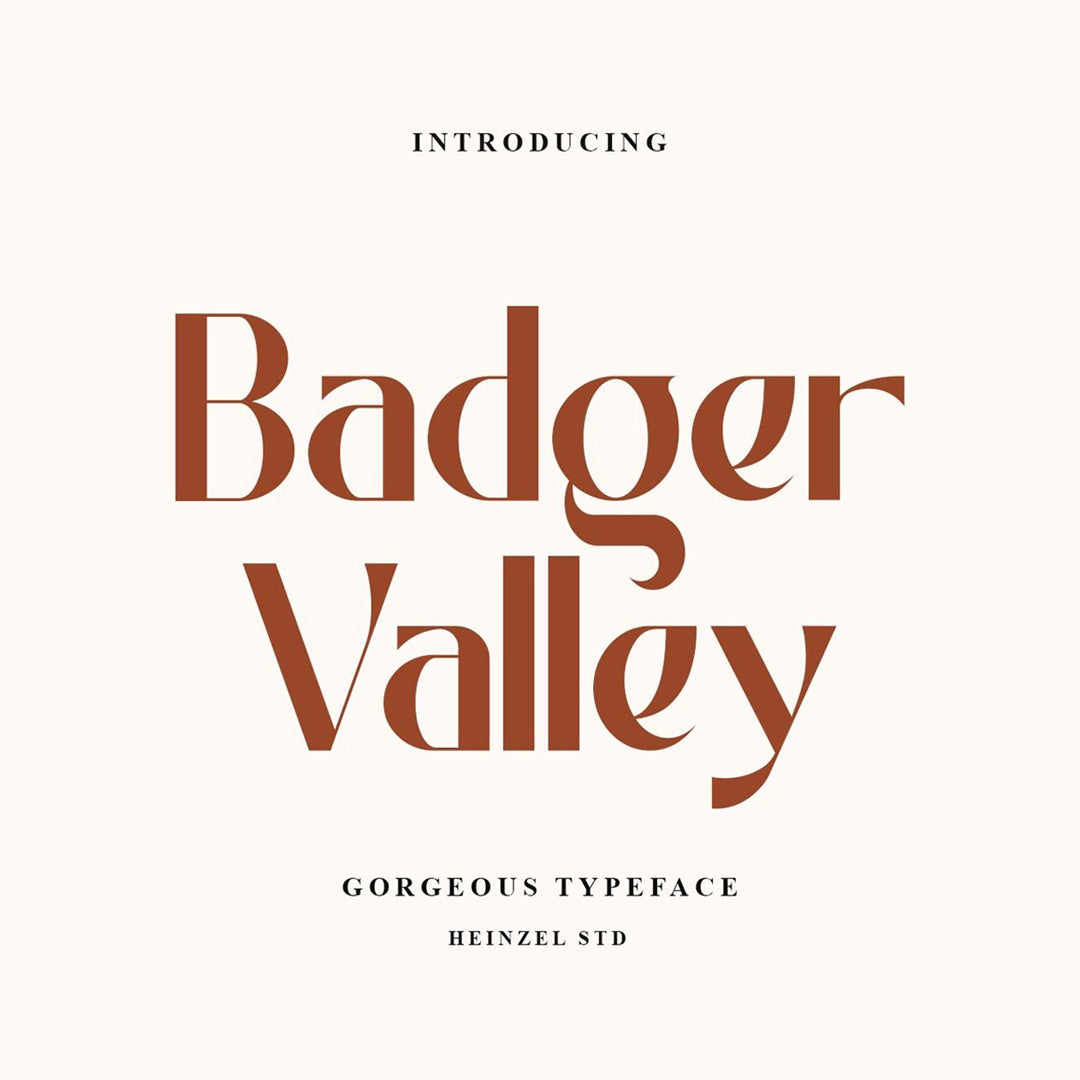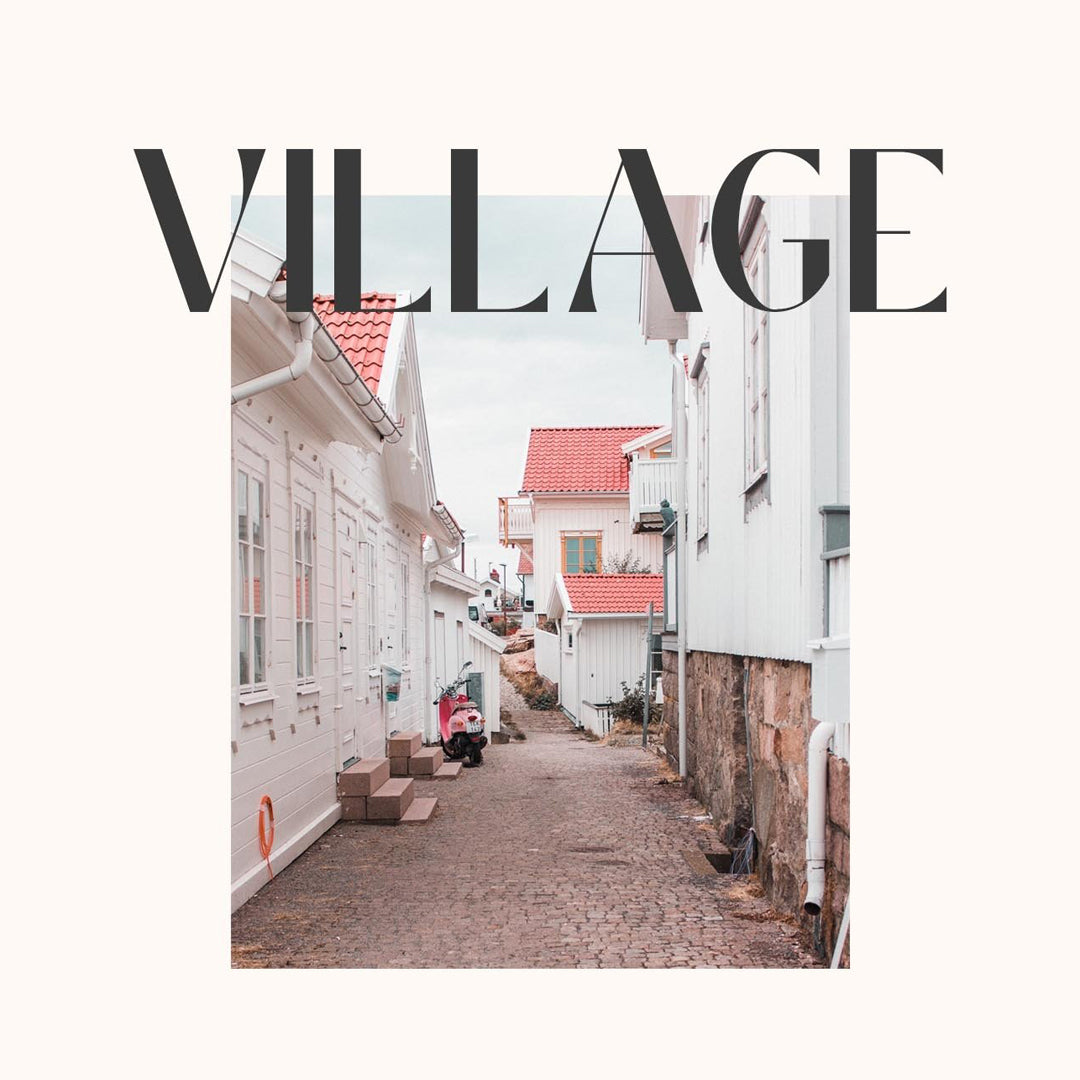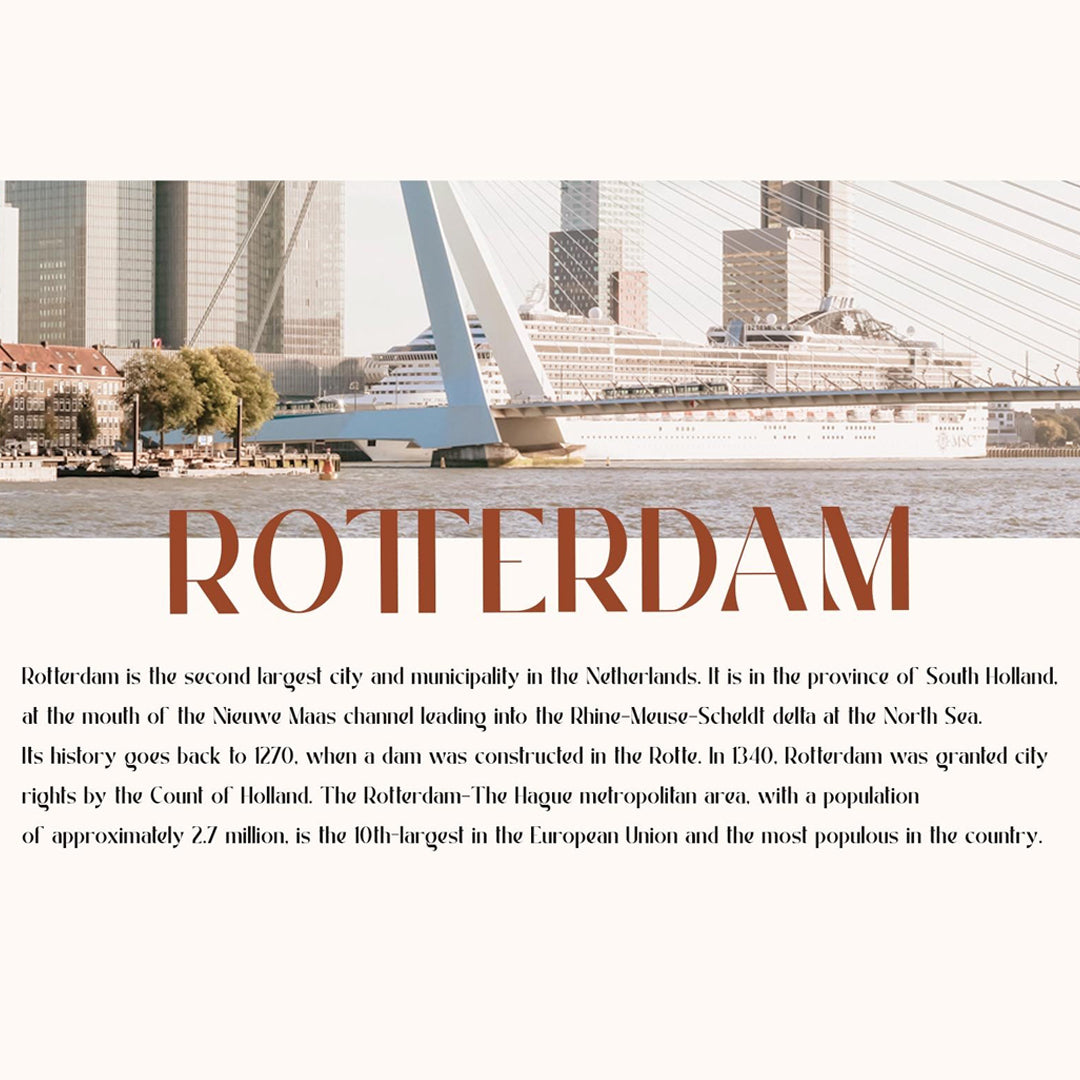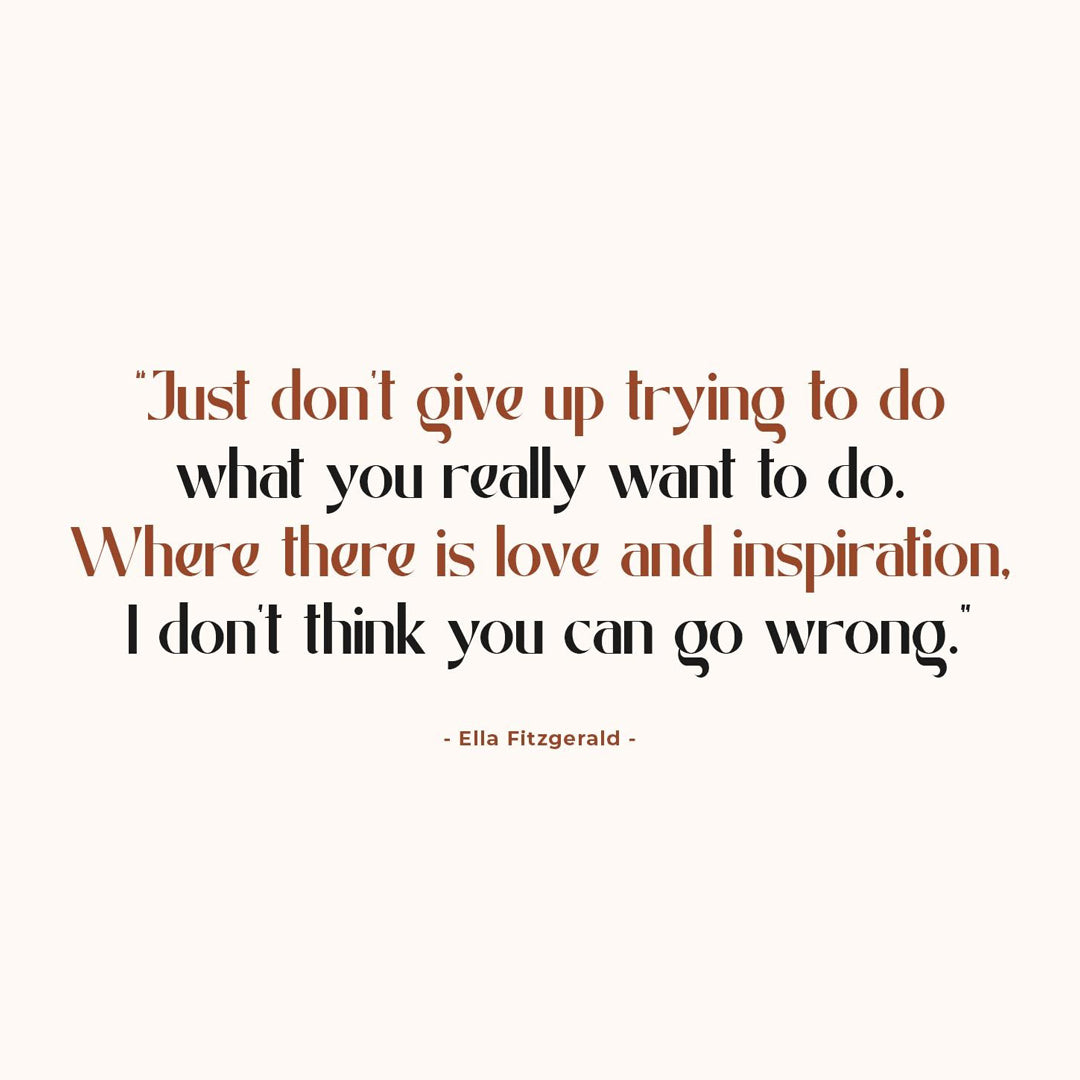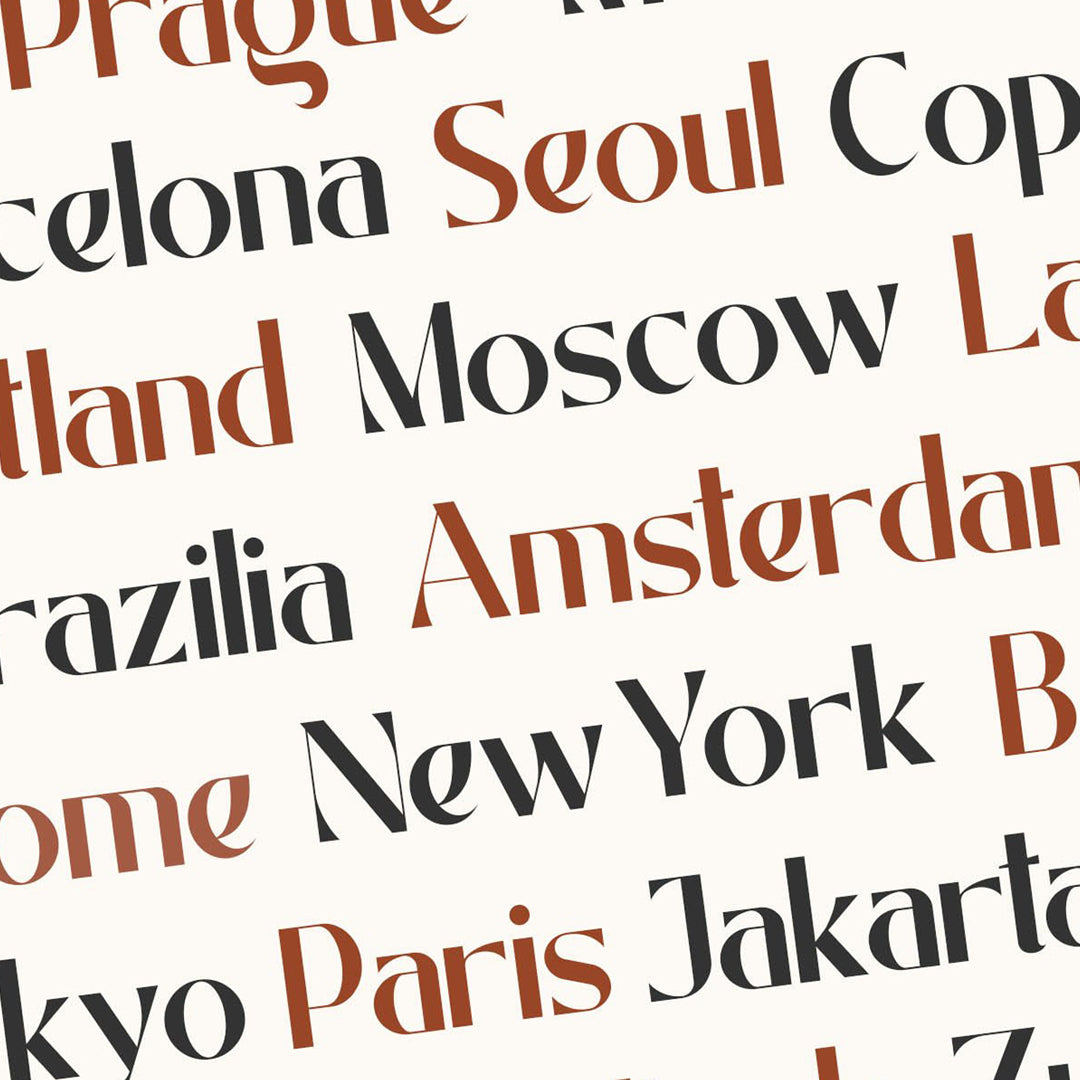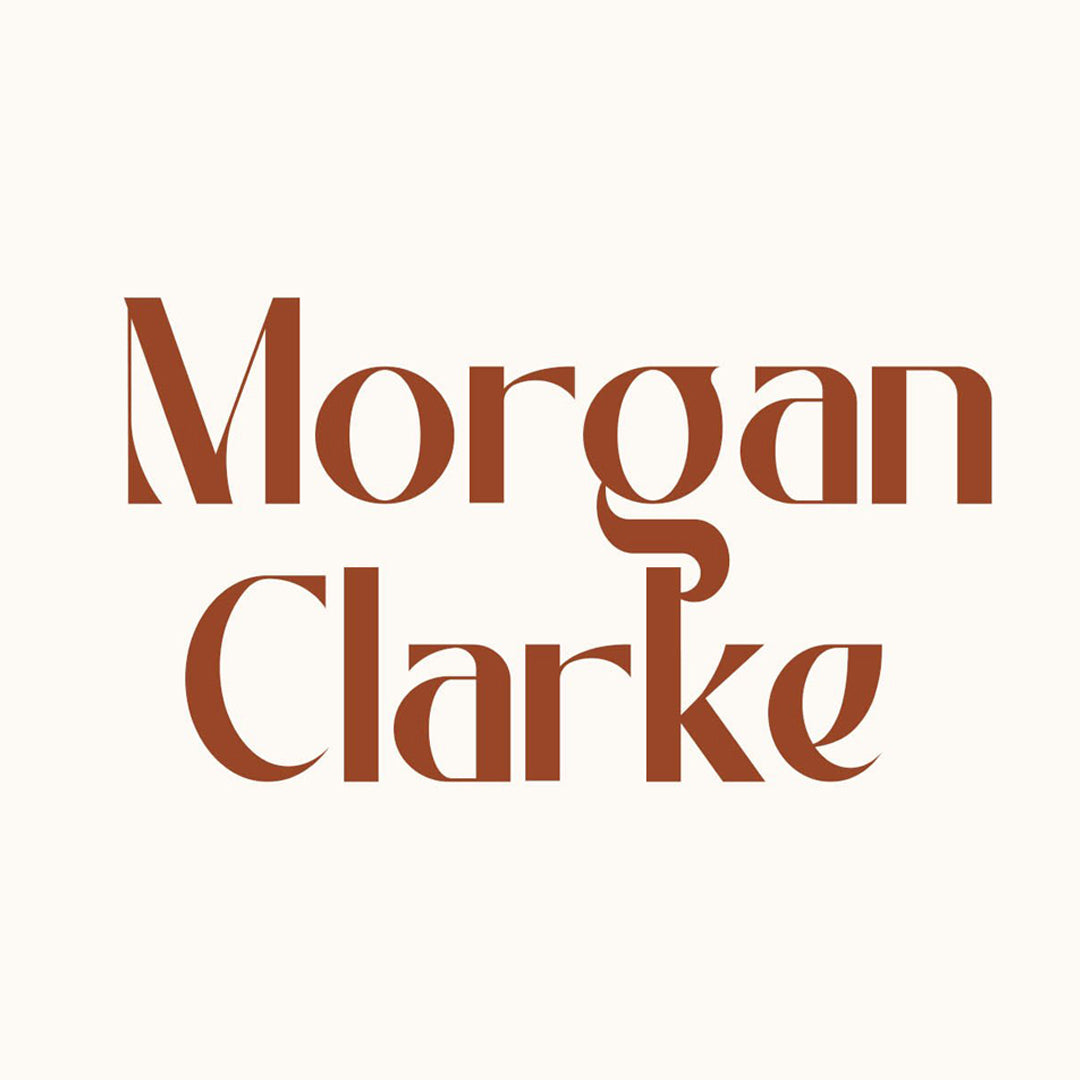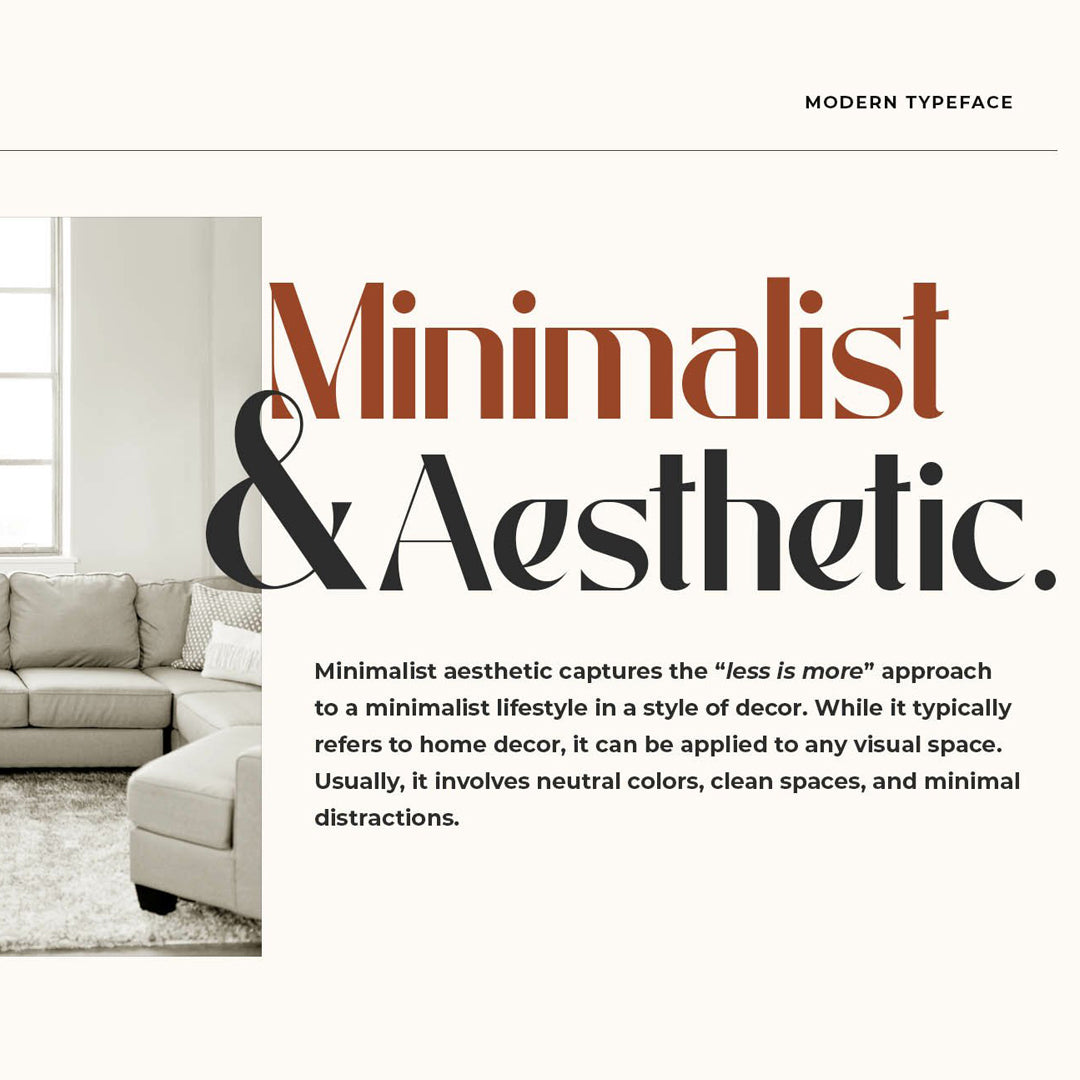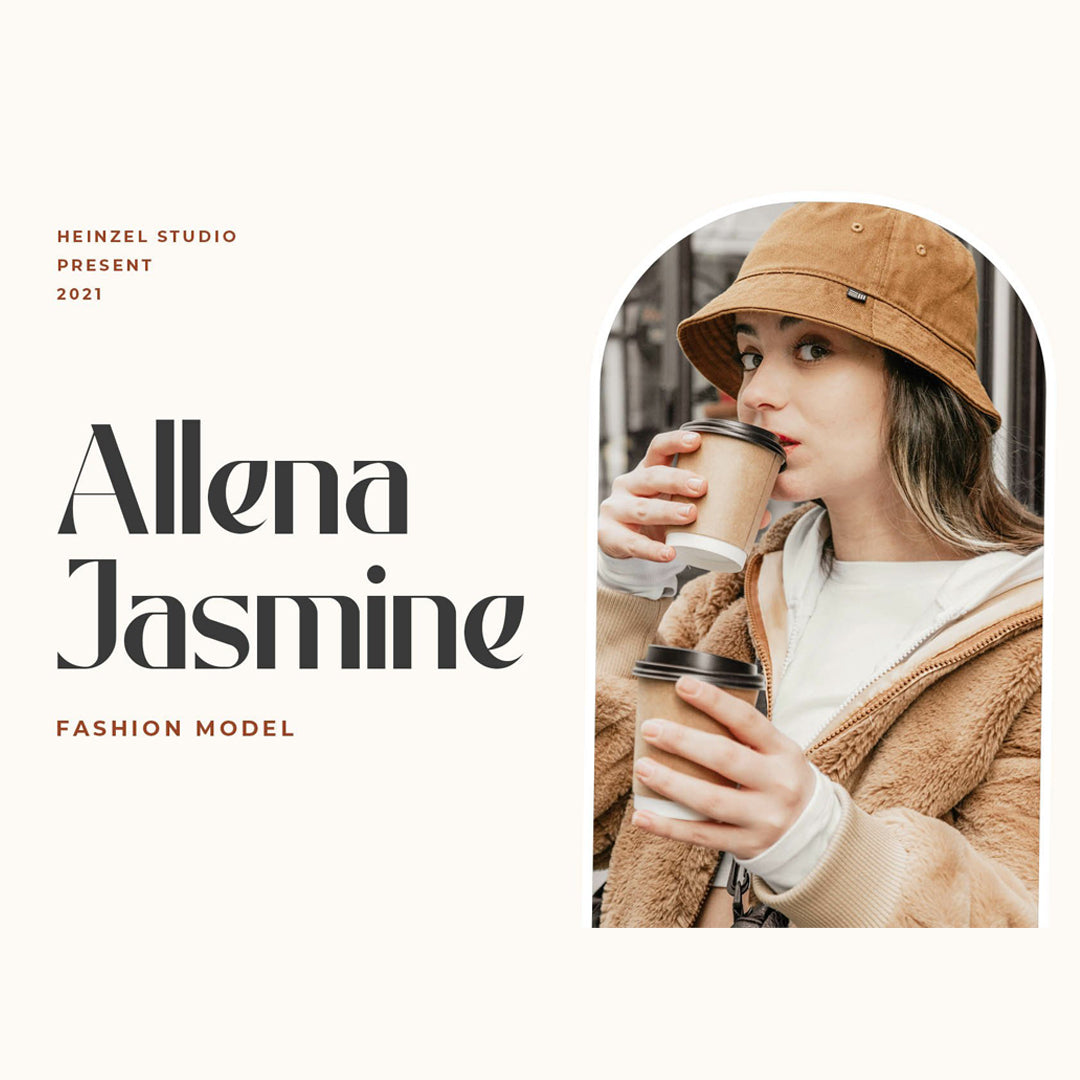
Badger Valley Gorgeous Typeface
Badger Valley is a gorgeous high-contrast display typeface that blends elegant editorial sophistication with a bold, fashion-forward personality. Its dramatic thick-and-thin strokes, refined curves, distinctive letterforms, and stylish proportions create a luxurious visual presence that instantly elevates any design.
Designed for designers who want typography to make a statement, Badger Valley works beautifully for luxury branding, fashion magazines, editorial layouts, beauty products, logos, packaging, invitations, posters, headlines, and social media graphics. The contrast between its elegant shapes and bold structure gives the font a contemporary yet timeless character.
Whether you're creating a premium brand identity, sophisticated wedding stationery, an editorial campaign, or an eye-catching headline, Badger Valley Font brings an artistic and luxurious touch to your typography.
Badger Valley is a high-contrast display typeface featuring thick-and-thin strokes, refined curves, and distinctive letterforms. It combines editorial and fashion-oriented design characteristics with bold structural proportions.